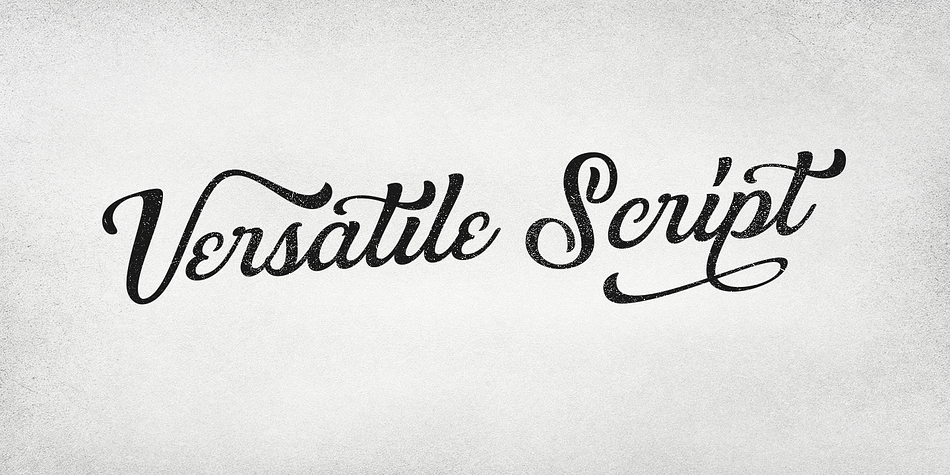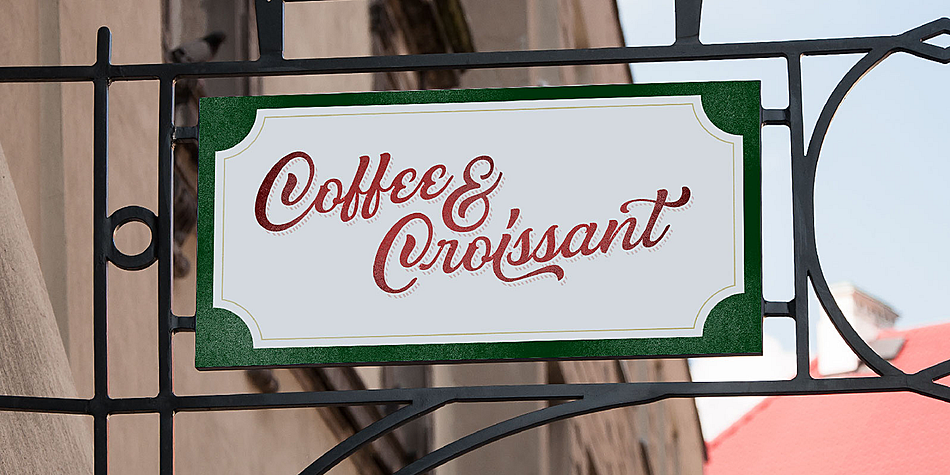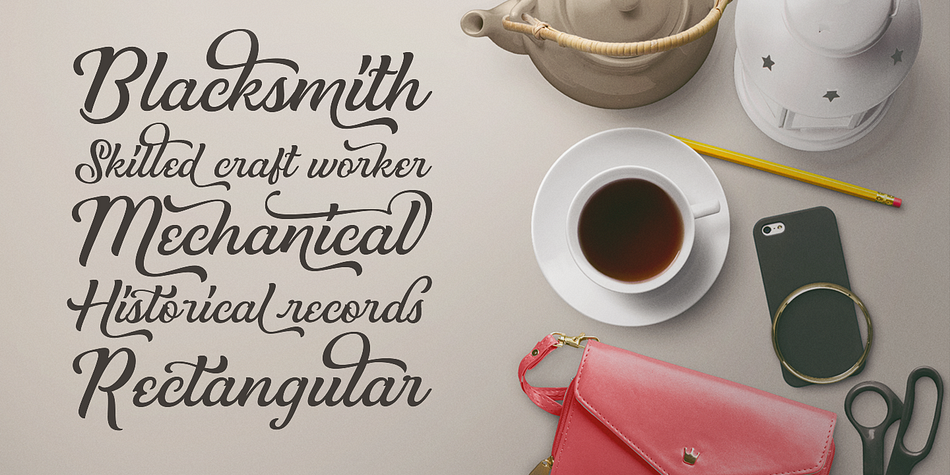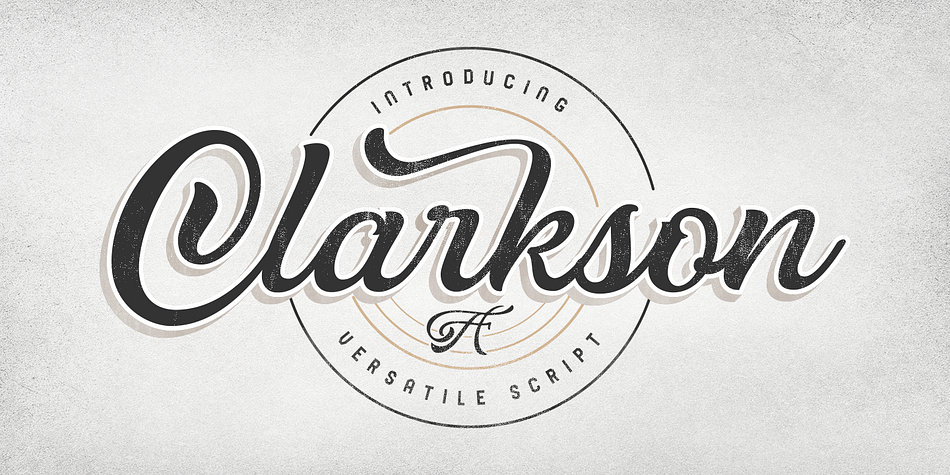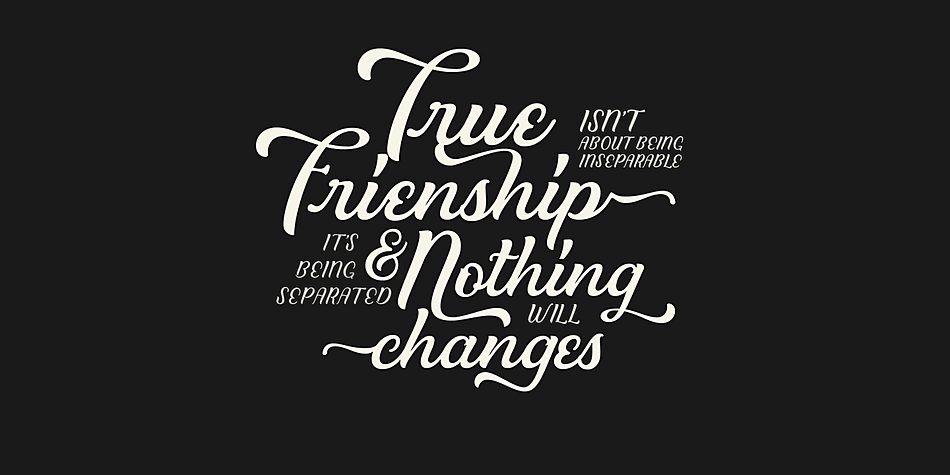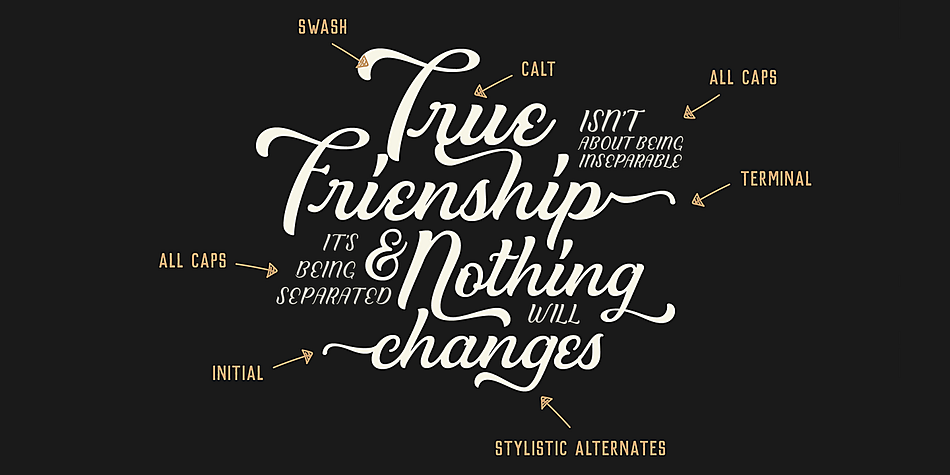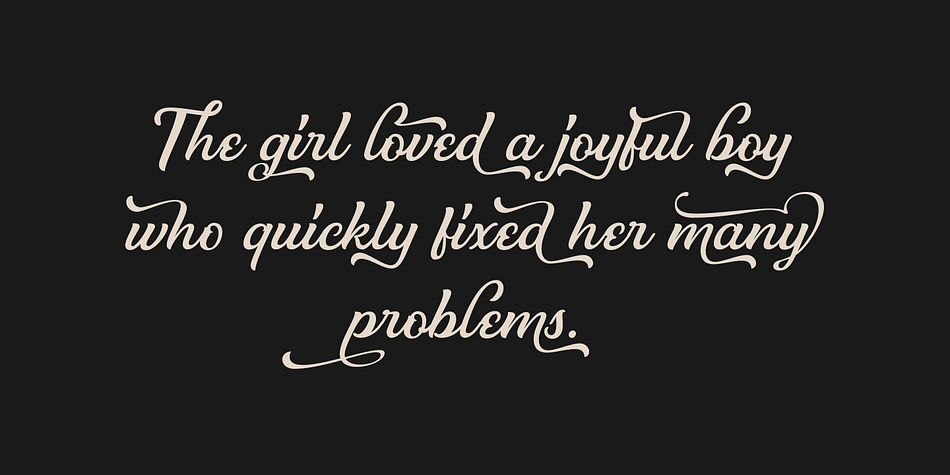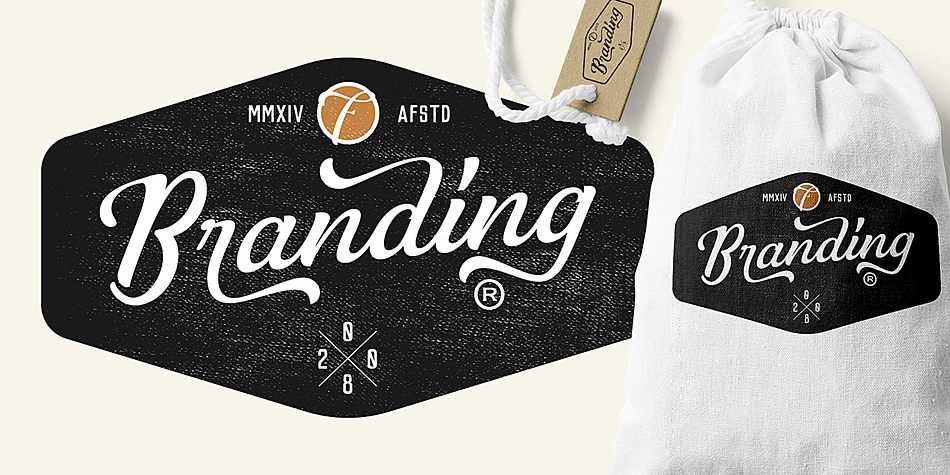
Clarkson Script
Designed by Adam Fathony, Clarkson Script is a script font family published by AF Studio.
Introducing Clarkson Script
Brand new stylish versatile font! In collaborating with Albion Room. Fresh from the oven as inspired to create easy digital lettering for you. Characters included more than 550+, check the display no 3. Also comes with lots of alternate characters lowercase and uppercase, ligatures, setting up for easy use on the initial and terminal forms. It will be great for Logotypes, Posters, Digital Lettering Arts, Clean design, Branding Design, Sign, etc.
Features
Contextual Alternates
Stylistic Alternates (up to 10 style in some letters)
Ligatures (including Th, st, tt)
Initial & Terminal
Refined All caps (No more tail or swash when type in all caps)